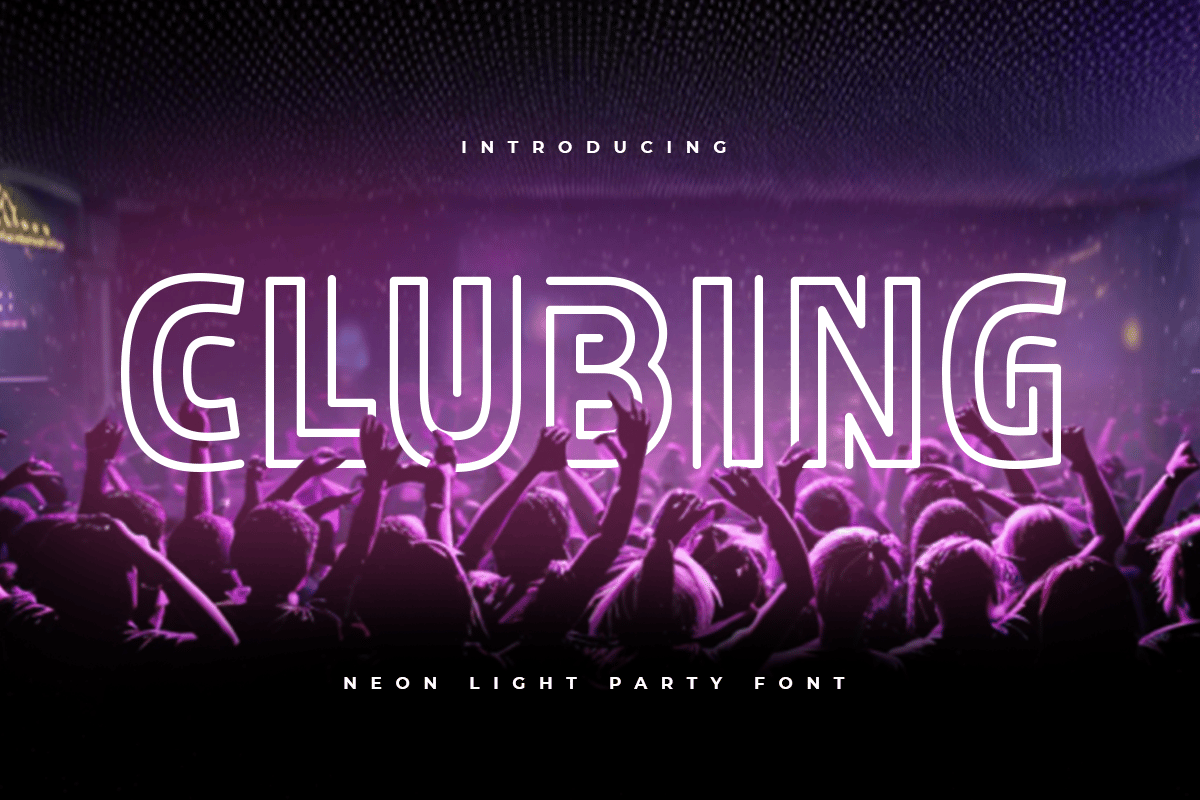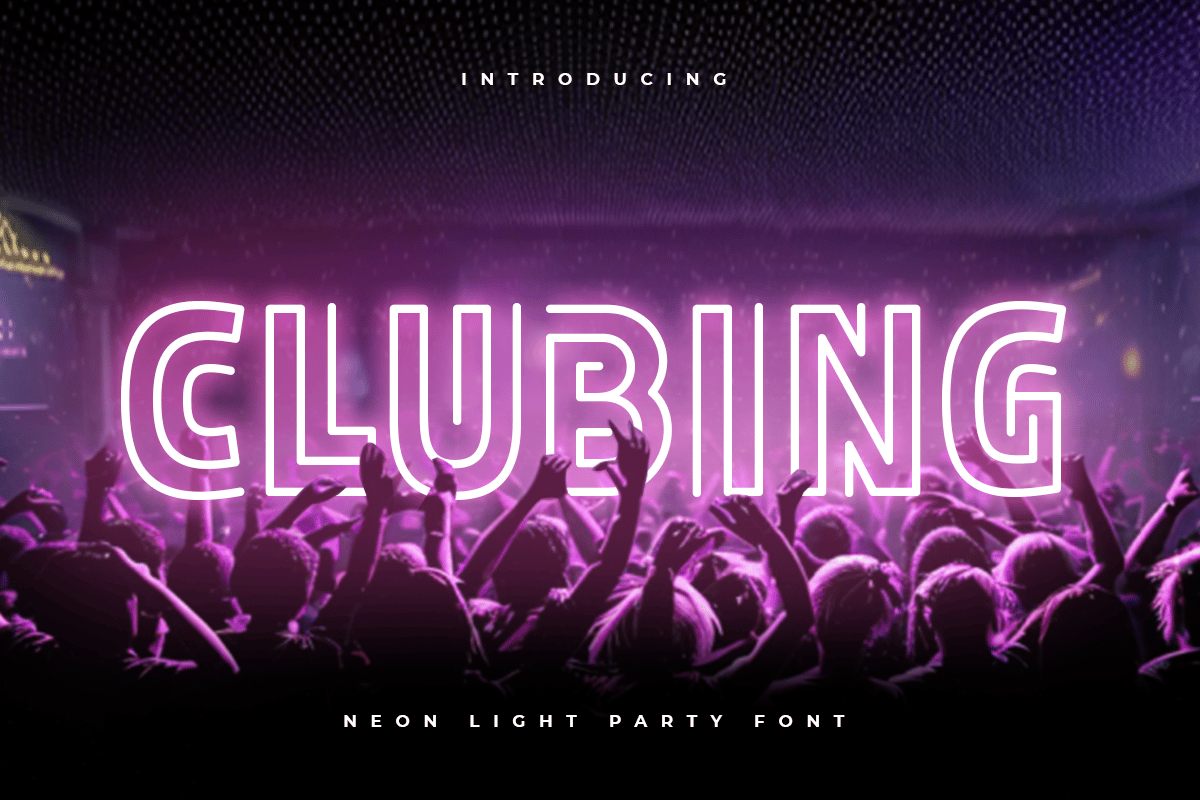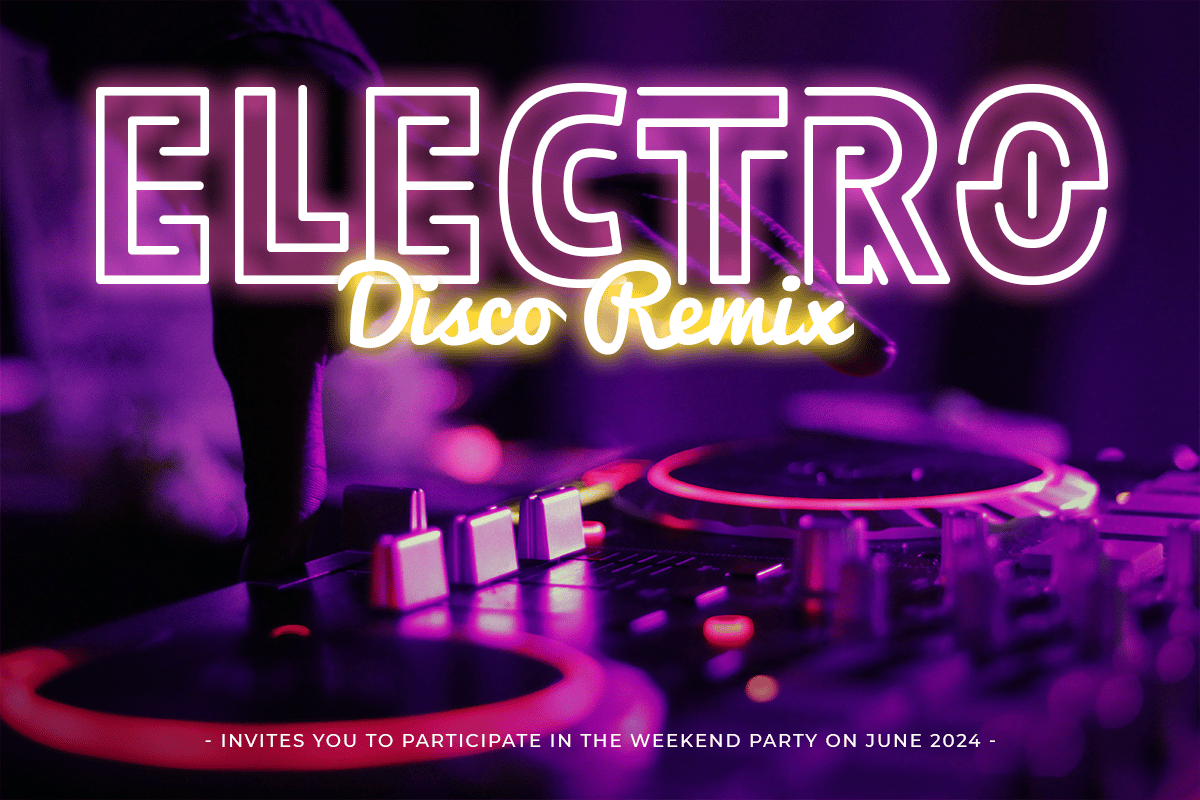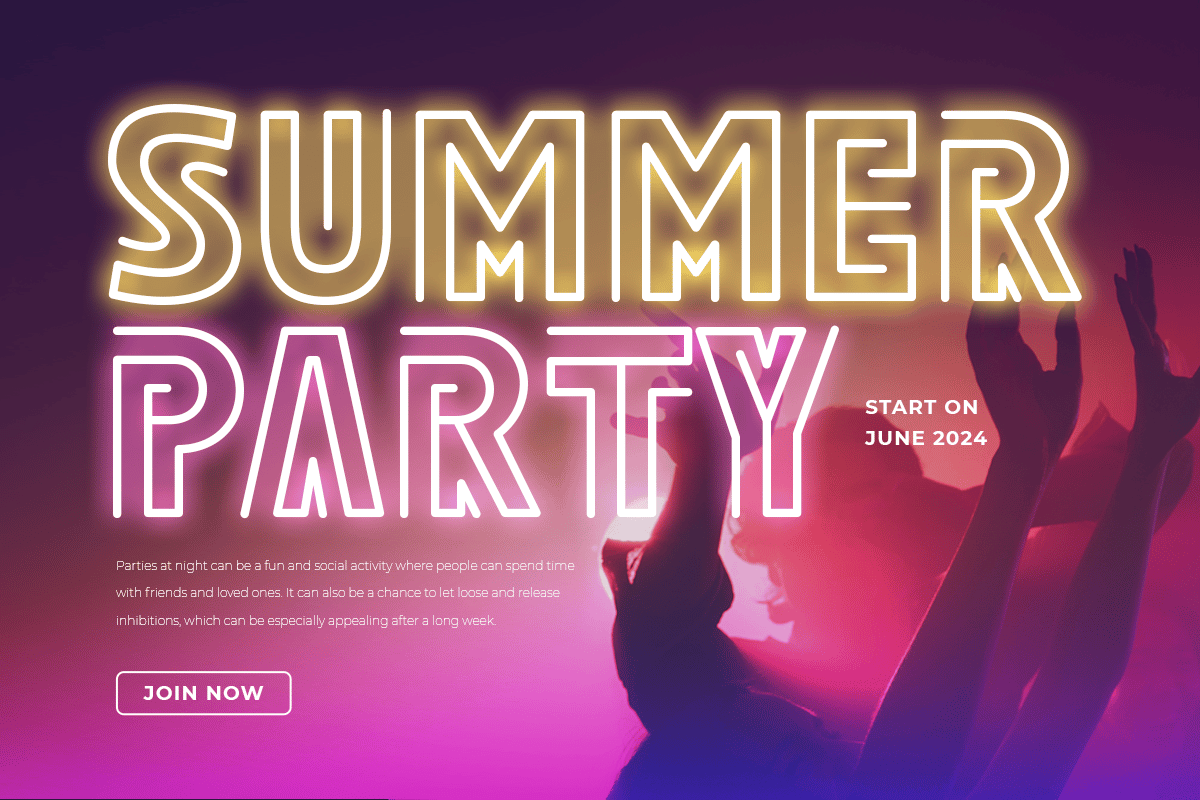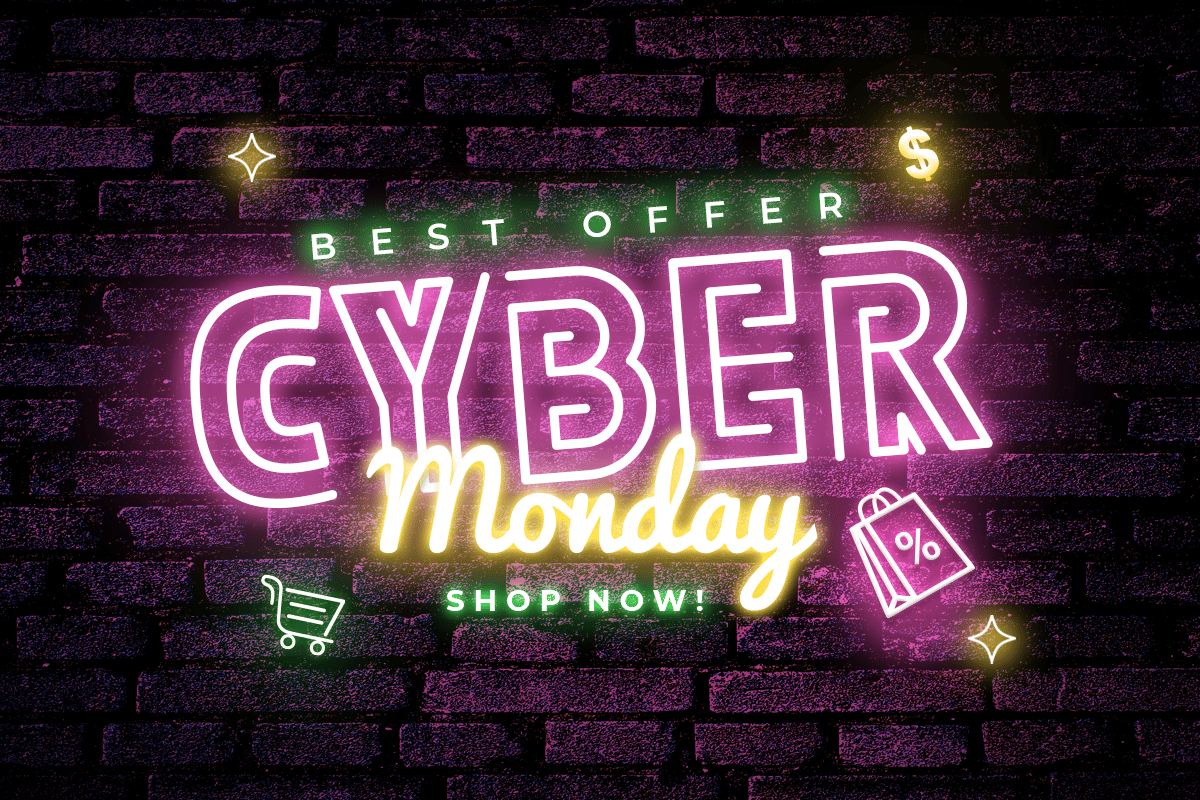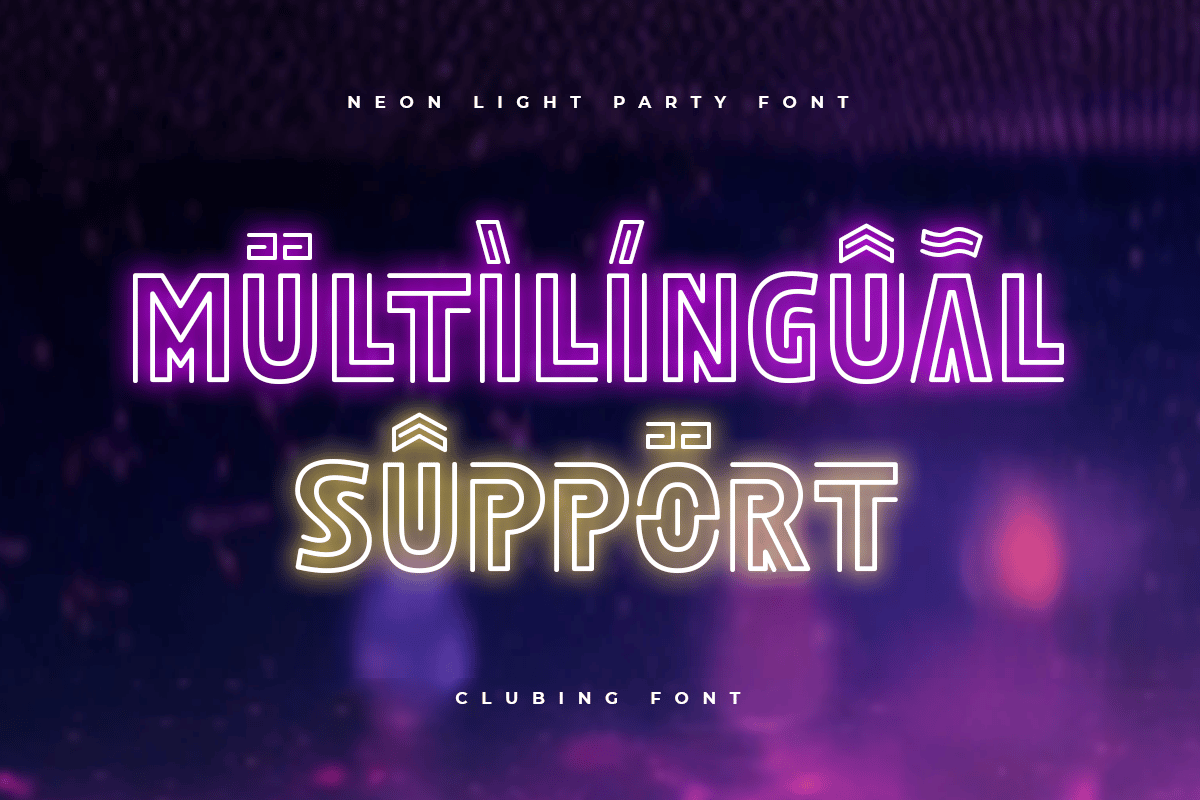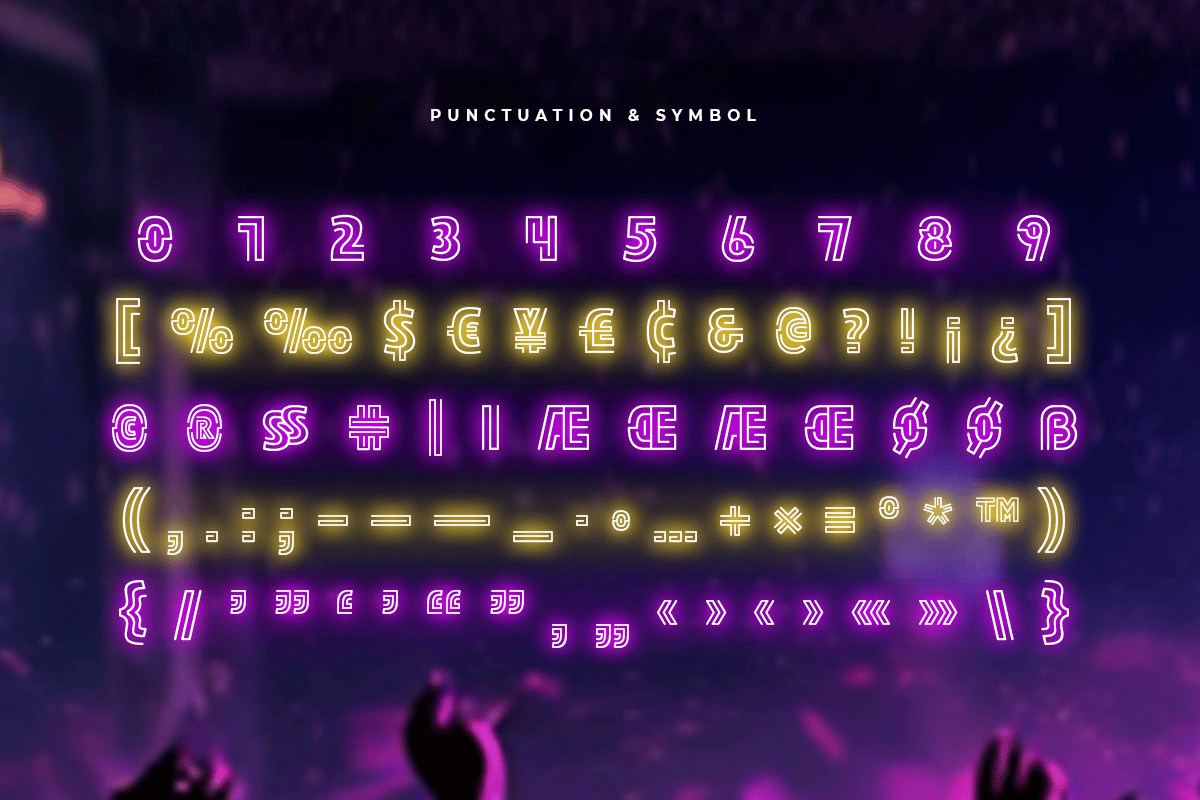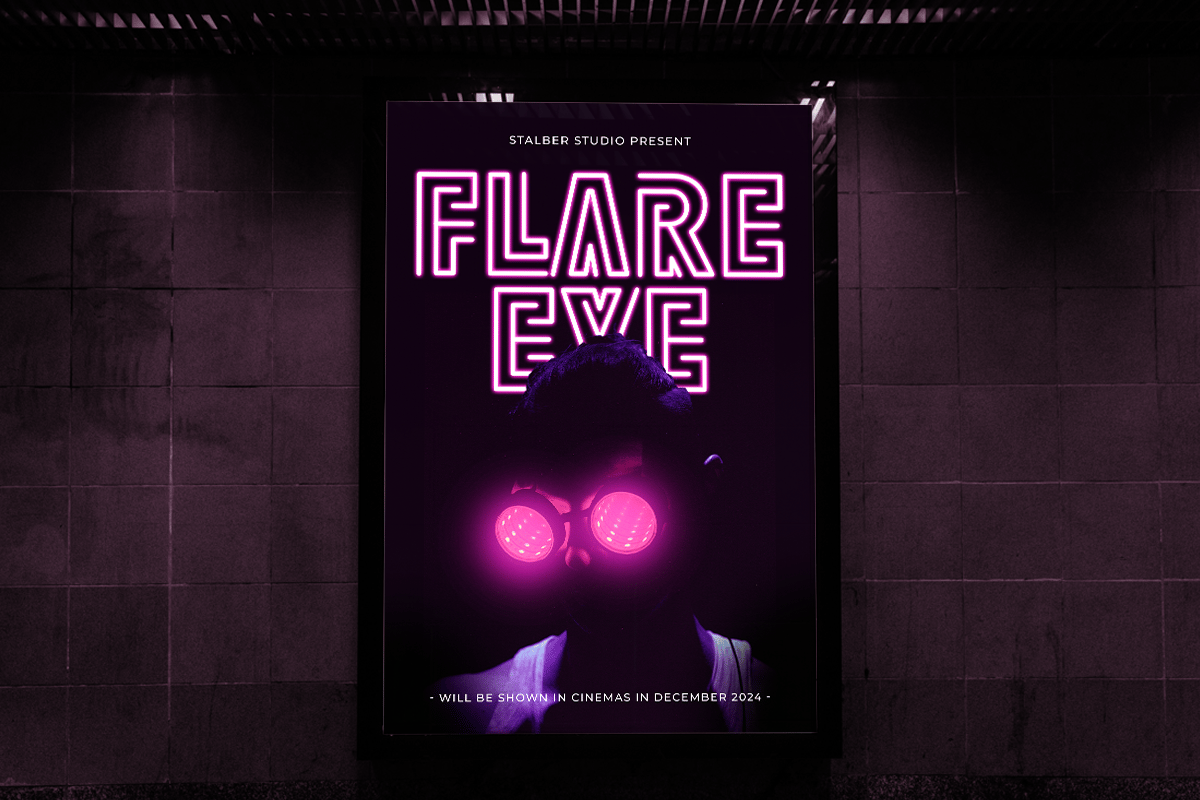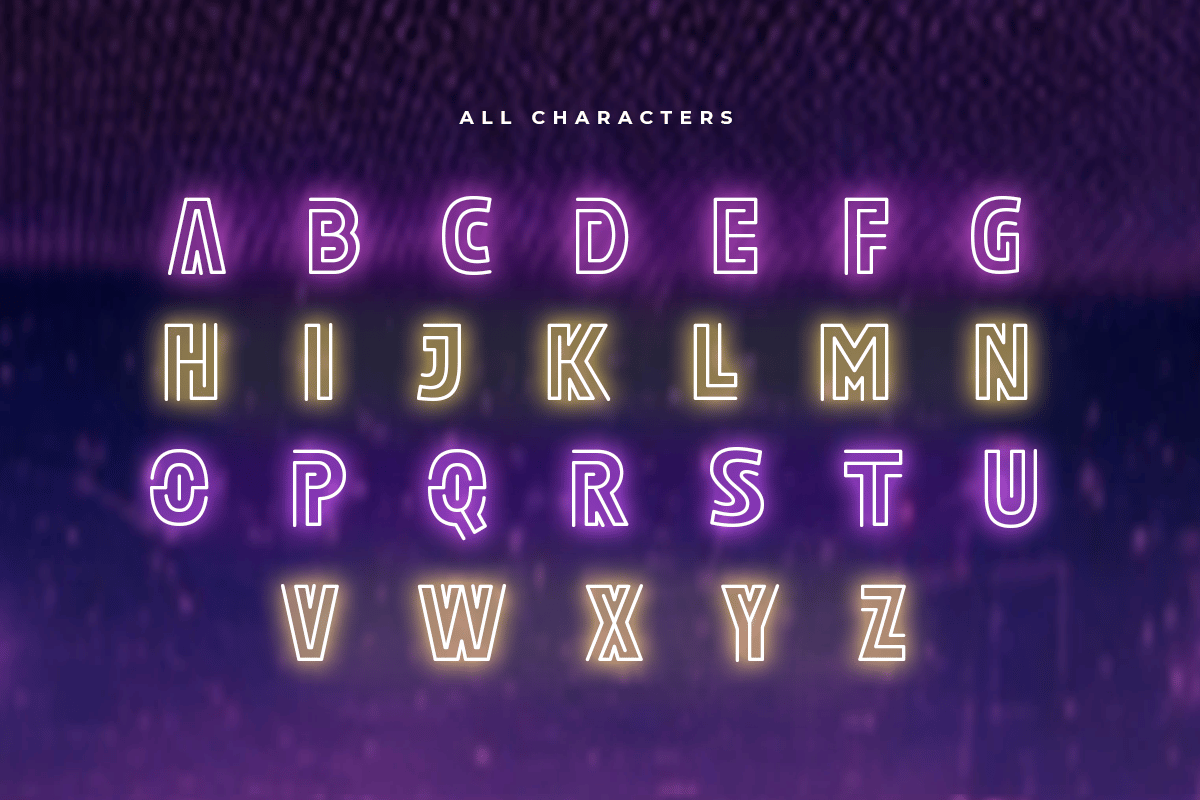
Clubing – Neon Light Party Font
CLUBING is a Neon Light Party Font with inline shape make your design look unique and modern. A new Display Font that we created special for Headline, Title and more stand out typography needs. It’s so perfect to add your style and headline overview. And specially for this font, we crafted for unique style and modern feels so enjoy to create any project that will show your main idea out.